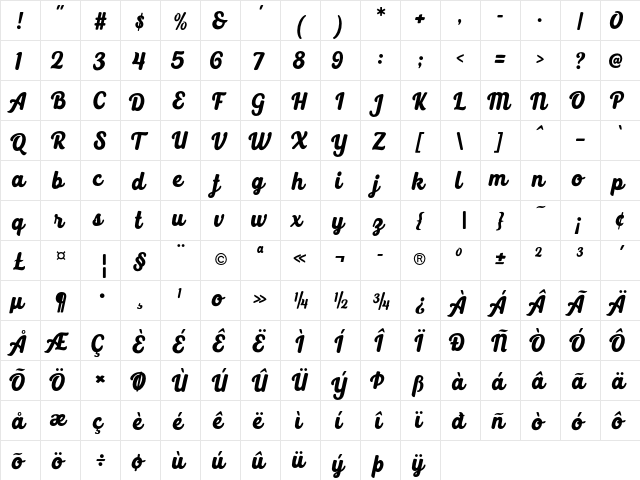
Selphia Script
Design Context for Selphia Typeface
Selphia flows with the natural rhythm of handwritten lettering, making it ideal for designs that call for warmth and personal expression.
Font Pairing: Combine Selphia with a simple geometric sans for maximum contrast — the tension between flowing curves and clean structure is a classic typographic pairing.
Pro Tip: Pair Selphia with a clean sans-serif for supporting text. The contrast between fluid script and geometric structure creates an elegant typographic hierarchy.